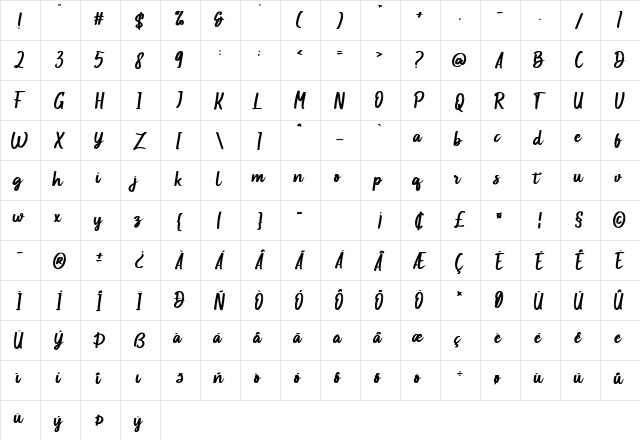
Baqillugs Regular
| Designer | Stringlabs. 2020 |
Design Context for Baqillugs Typeface
Baqillugs is a composed and adaptable typeface that performs quietly and consistently across a wide range of design contexts.